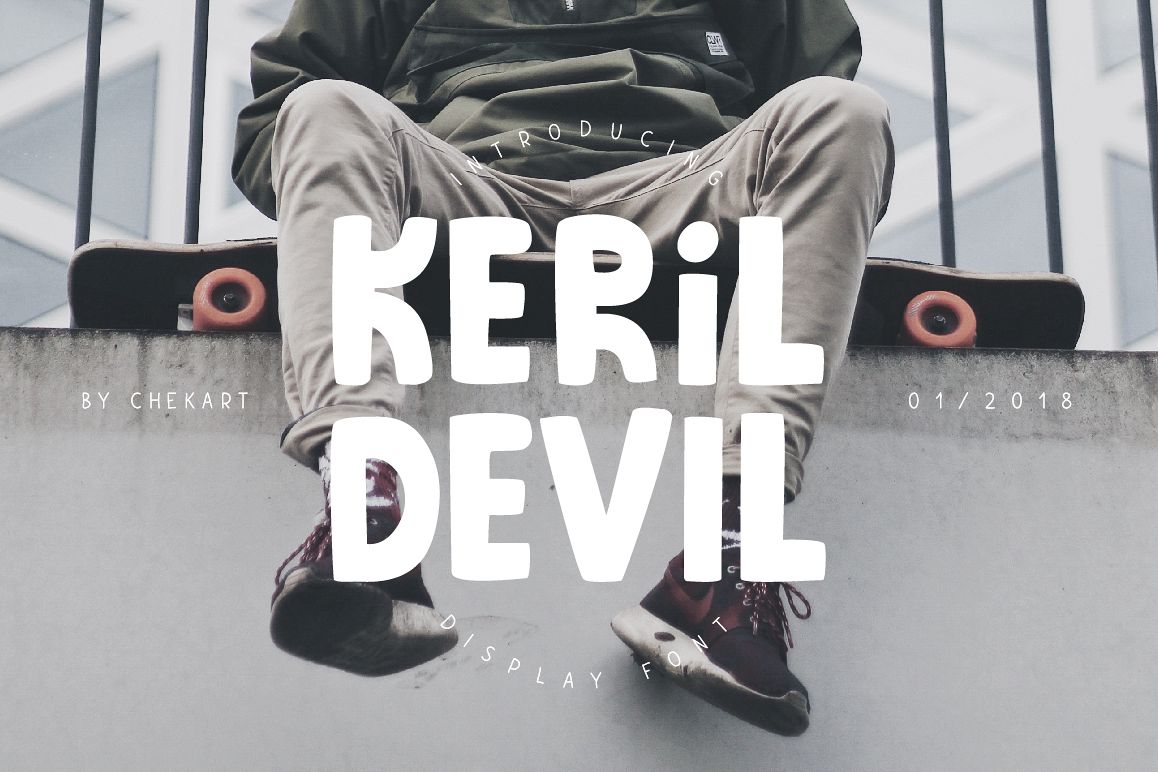
Keril Devil
Keril Devil is a fun kids display font. It contains a full set of lower & uppercase letters, large range of punctuation, numerals, cyrillic characters and multilingual support.
Perfect for logos, quotes, posters, branding projects, product packaging, t-shirt, book cover, greeting cards and applicable for any graphic design.